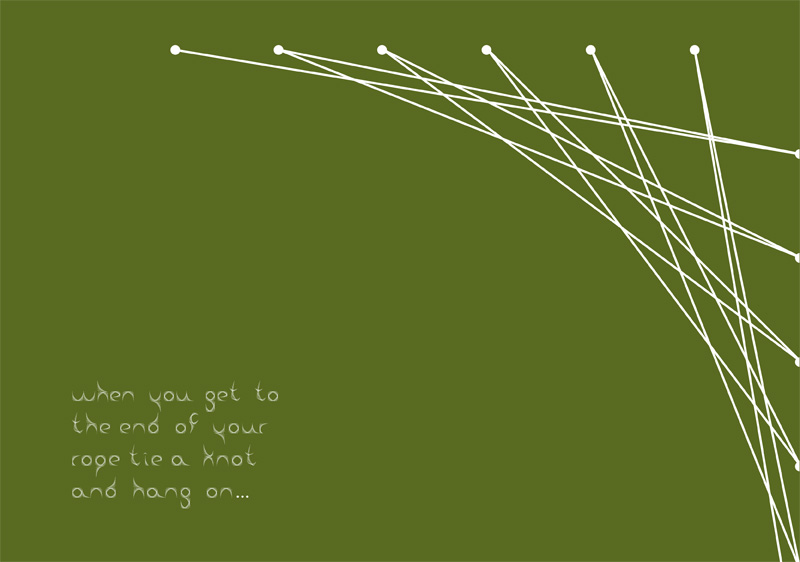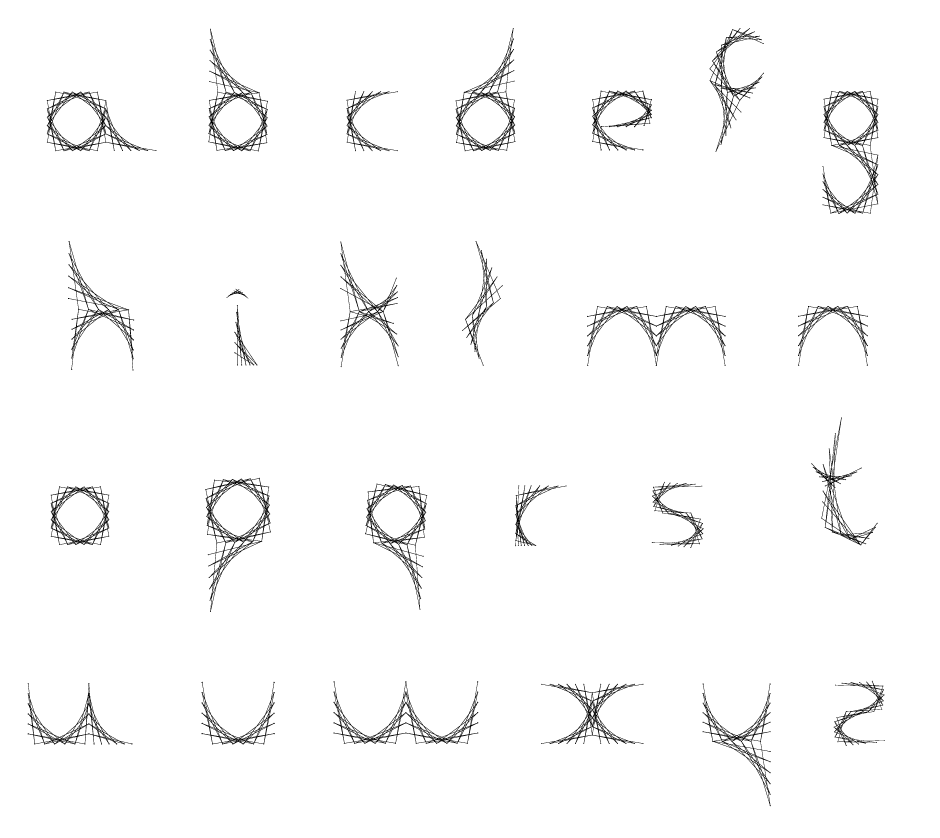
lashing knots
by Carine Teyrouz
WHEN 2010
WHERE Beirut
WHAT This font is inspired by the scout technique.
WHO Carine Teyrouz
WHAT This font is inspired by the scout technique of ' Lashing Knots ', a traditional rope game practised by scouts worlwide. It reflects the different rope designs that can be created using this technique.